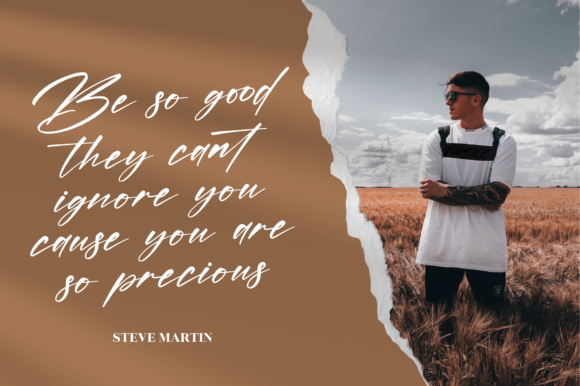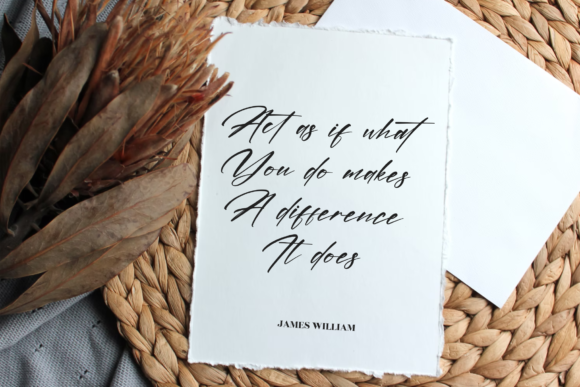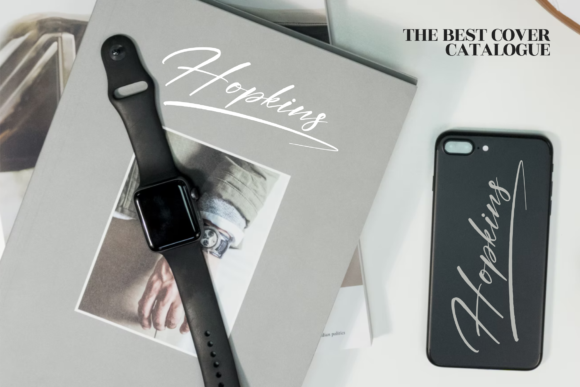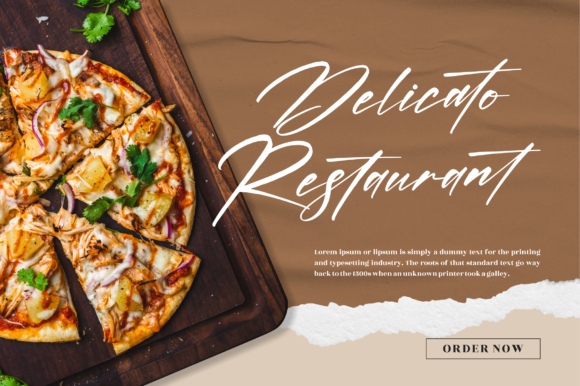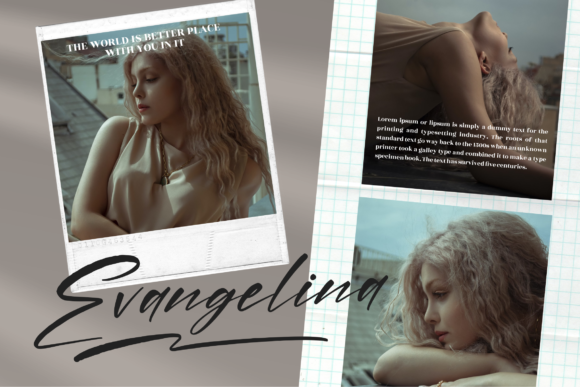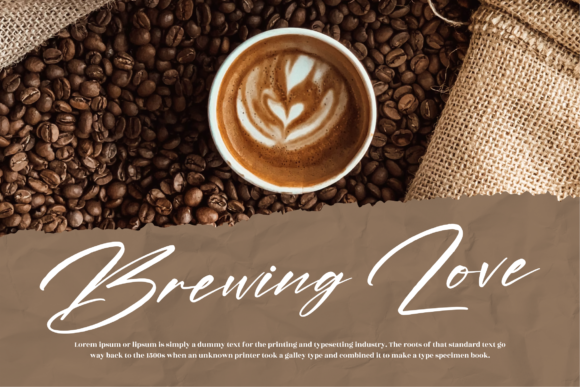
Introducing Andilante Gashina Font: The Ultimate Luxury Calligraphy Typeface
Are you a designer or crafter looking for a font that adds a touch of luxury and romance to your design projects? Look no further than Andilante Gashina Font! This stunning calligraphy typeface is designed to make your designs stand out with its unique and elegant characters that dance along the baseline.
What Makes Andilante Gashina Font So Special?
Andilante Gashina Font is a romantic and sweet calligraphy typeface that is perfect for adding a touch of sophistication and elegance to any design project. Its characters are carefully crafted to dance along the baseline, creating a beautiful and fluid motion that is sure to capture the attention of your audience.
Key Features of Andilante Gashina Font
- PUA Encoded: Andilante Gashina Font is PUA encoded, which means that you can access all of the amazing glyphs and ligatures with ease. This makes it easy to use and customize the font to suit your design needs.
- Luxury Spark: This font is designed to add a luxury spark to any design project. Its elegant and sophisticated characters are perfect for creating high-end designs that exude luxury and sophistication.
- Romantic and Sweet: Andilante Gashina Font is a romantic and sweet calligraphy typeface that is perfect for designs that require a touch of warmth and personality.
Andilante Gashina Font is perfect for designers and crafters who want to add a touch of luxury and elegance to their design projects. Whether you’re creating wedding invitations, branding materials, or social media graphics, this font is sure to make your designs stand out.
Use Cases for Andilante Gashina Font
- Wedding Invitations: Andilante Gashina Font is perfect for creating beautiful and elegant wedding invitations that set the tone for a luxurious and sophisticated wedding.
- Branding Materials: This font is ideal for creating high-end branding materials such as logos, business cards, and letterheads.
- Social Media Graphics: Andilante Gashina Font can be used to create stunning social media graphics that grab the attention of your audience and leave a lasting impression.
Tips for Using Andilante Gashina Font
- Pair it with a Sans Serif Font: Pair Andilante Gashina Font with a sans serif font to create a beautiful contrast that adds visual interest to your design.
- Experiment with Ligatures: Take advantage of the font’s ligatures to add a touch of elegance and sophistication to your design.
- Use it for Headings: Use Andilante Gashina Font for headings and titles to add a touch of luxury and elegance to your design.
Andilante Gashina Font is a stunning calligraphy typeface that is perfect for designers and crafters who want to add a touch of luxury and elegance to their design projects. With its unique and elegant characters, PUA encoding, and romantic and sweet style, this font is sure to make your designs stand out. So why wait? Download Andilante Gashina Font today and take your designs to the next level!